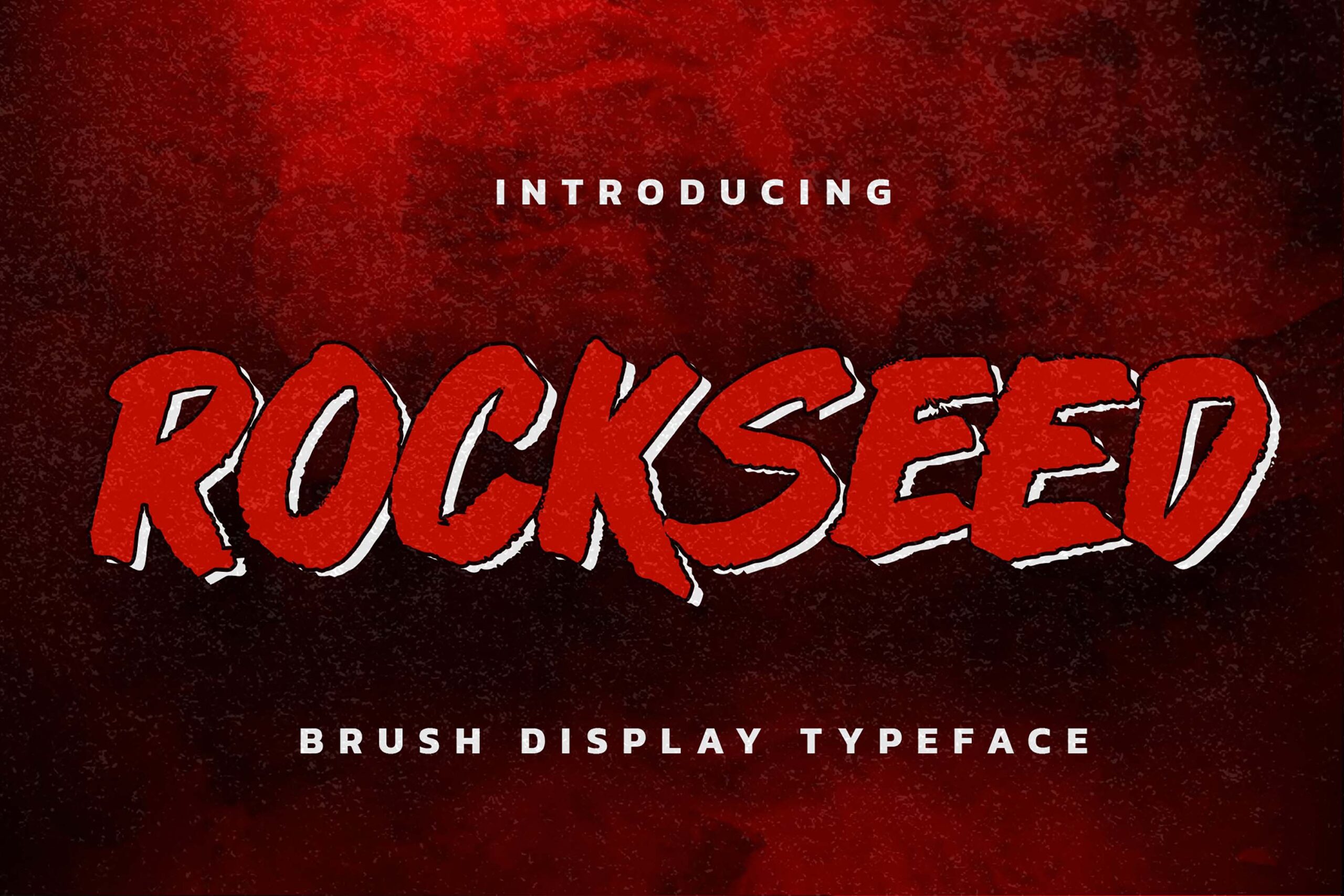
ROCKSEED – Brush Display Typeface , modern style and dramatic movement that is written casually and quickly.
The best for labels, poster, project designs look modern, strong and cool . It’s perfect for labels, quotes, posters, DIY projects, branding, packaging, greeting cards, websites, photography overlays, signs, scrapbooking, tags and so much more! That is why ROCKSEED has a textured, and authentic characteristic more natural look. You can activate Ligatures and Alternates glyphs OpenType panel.